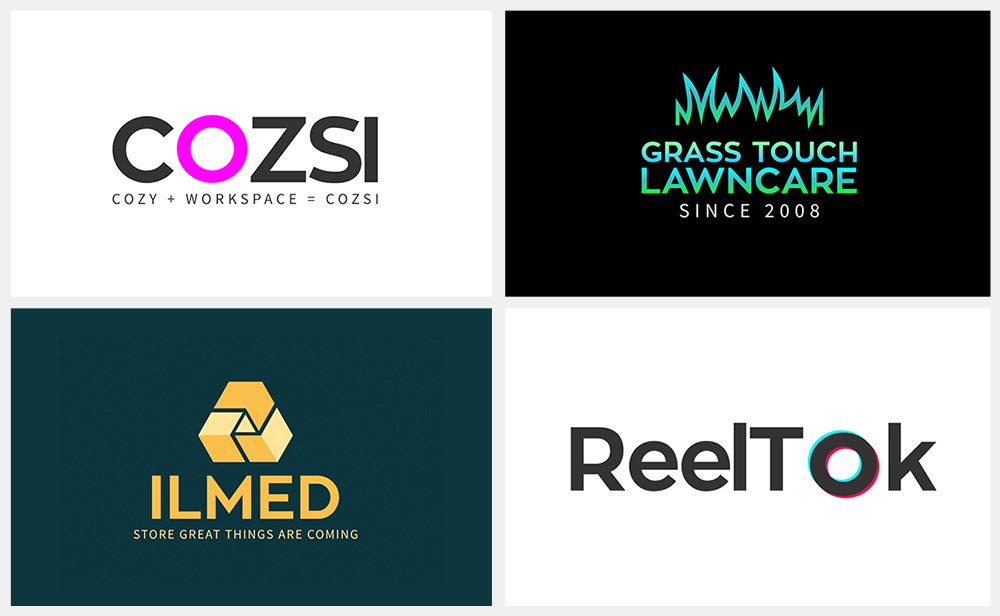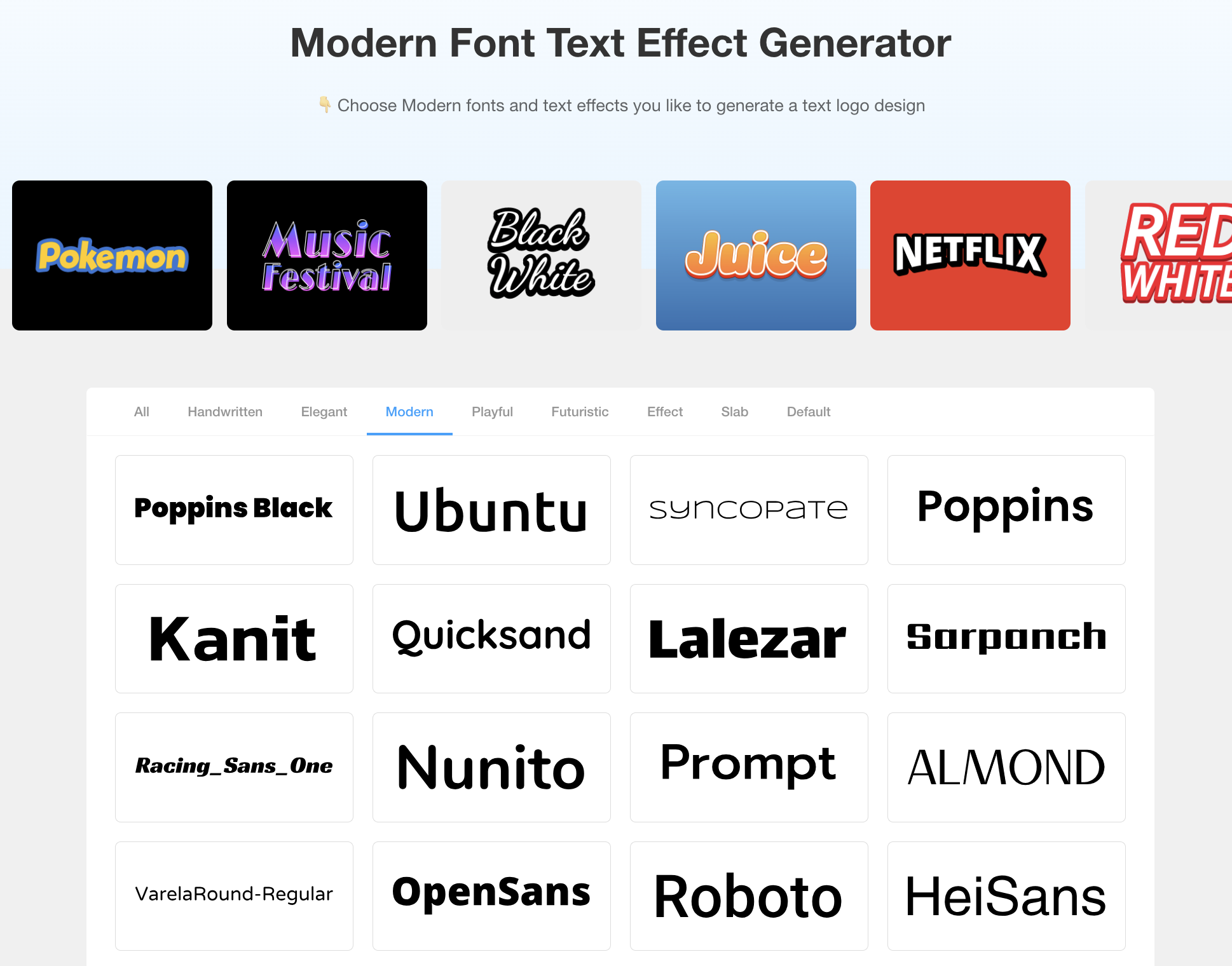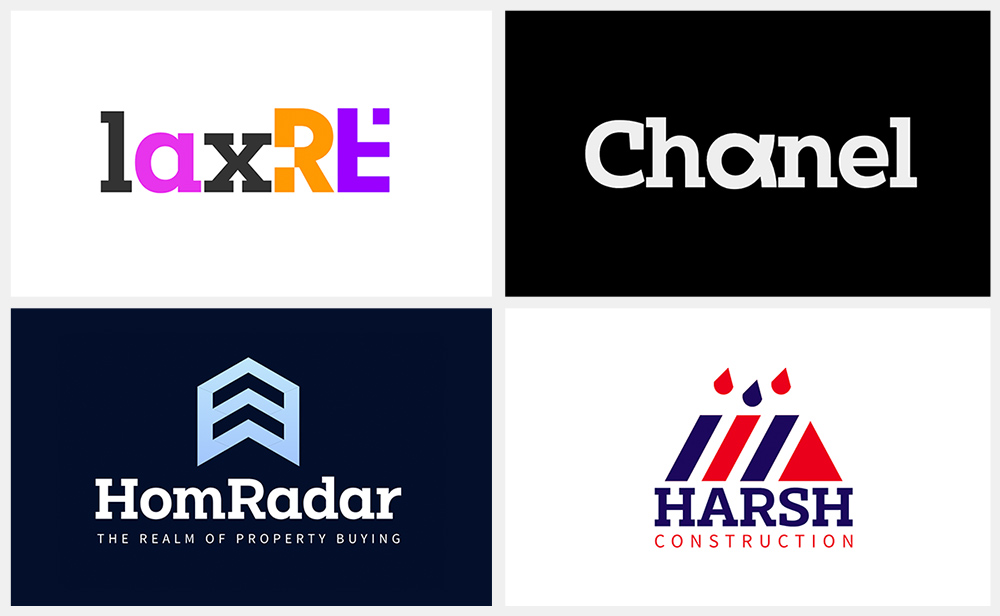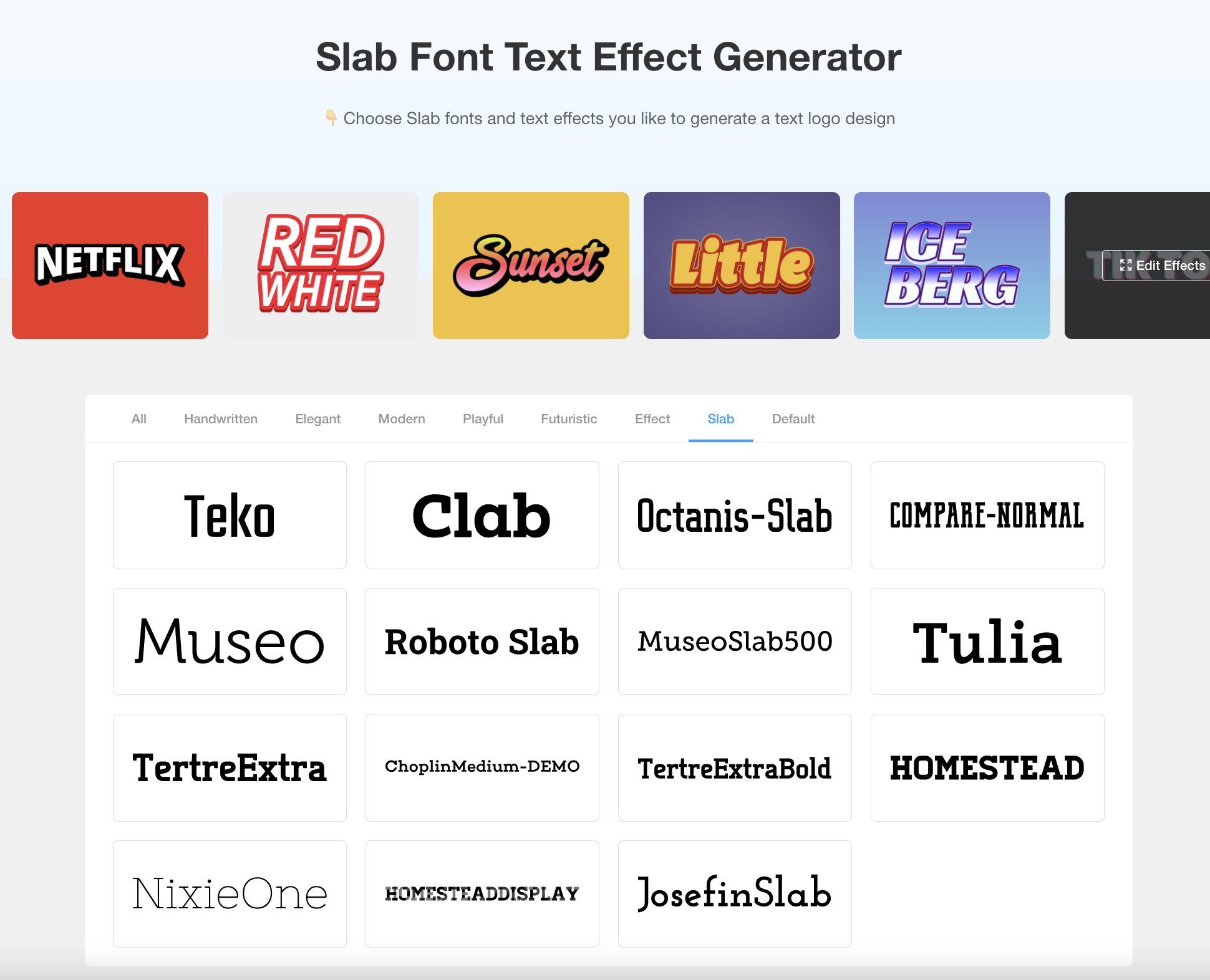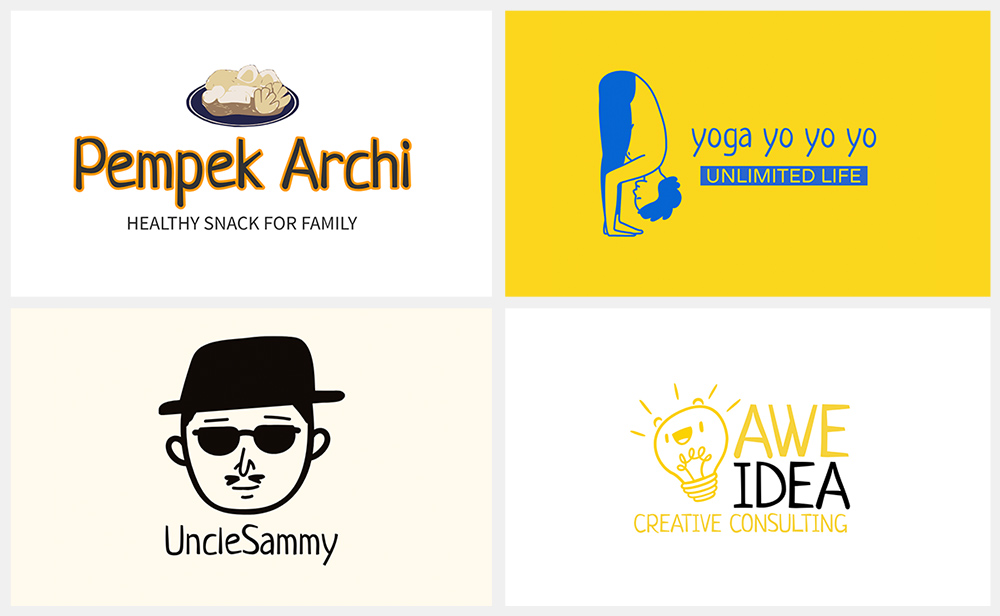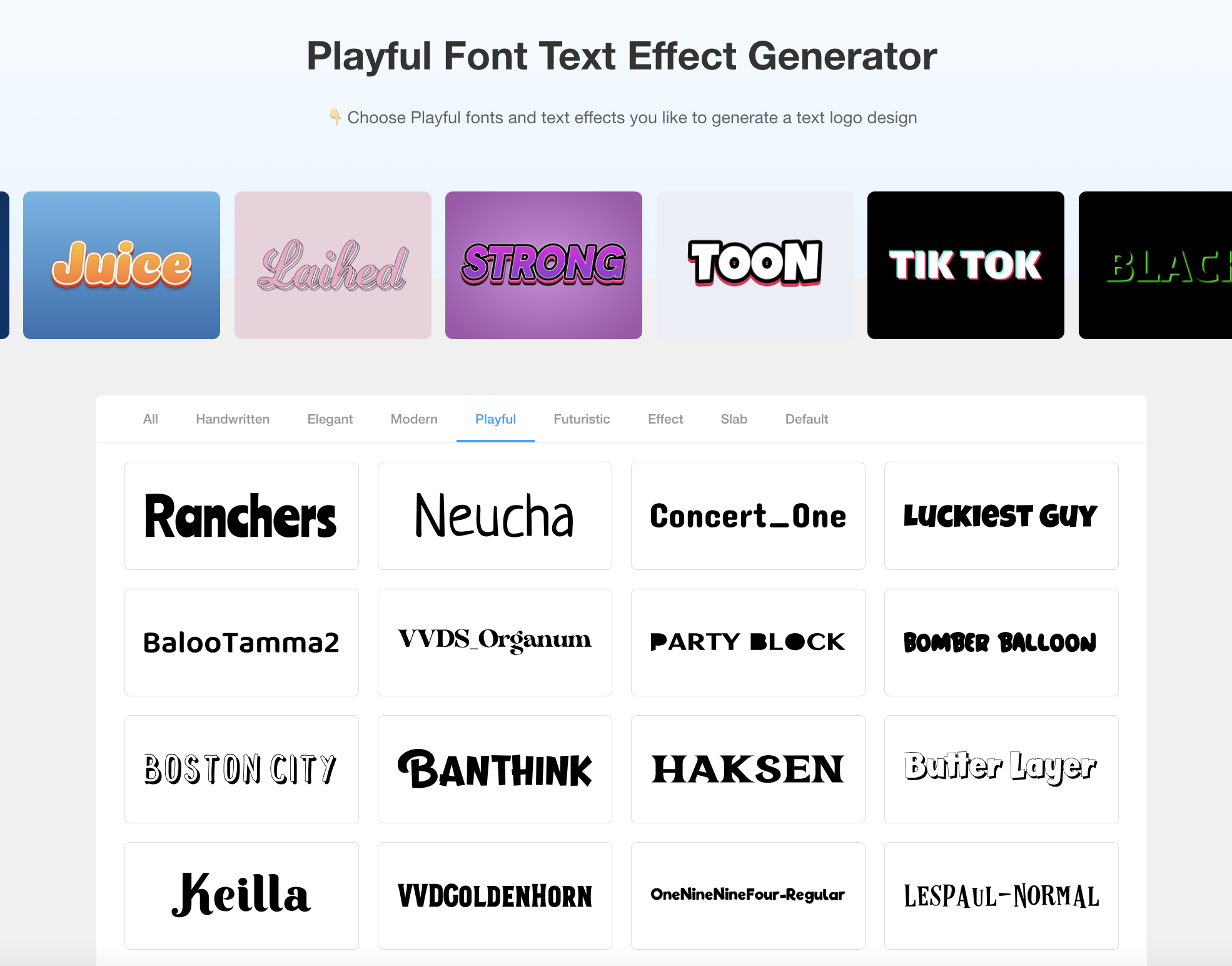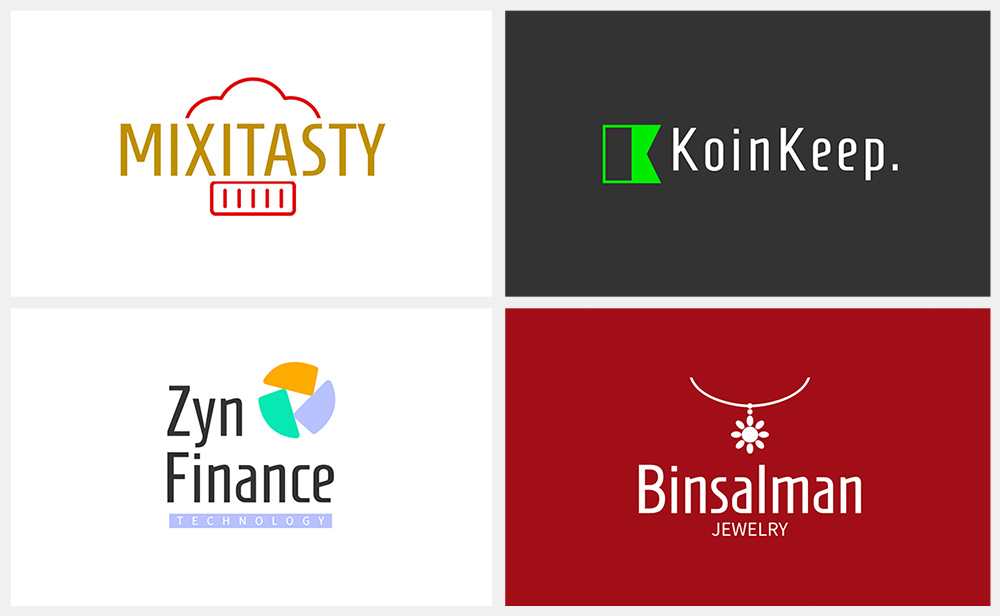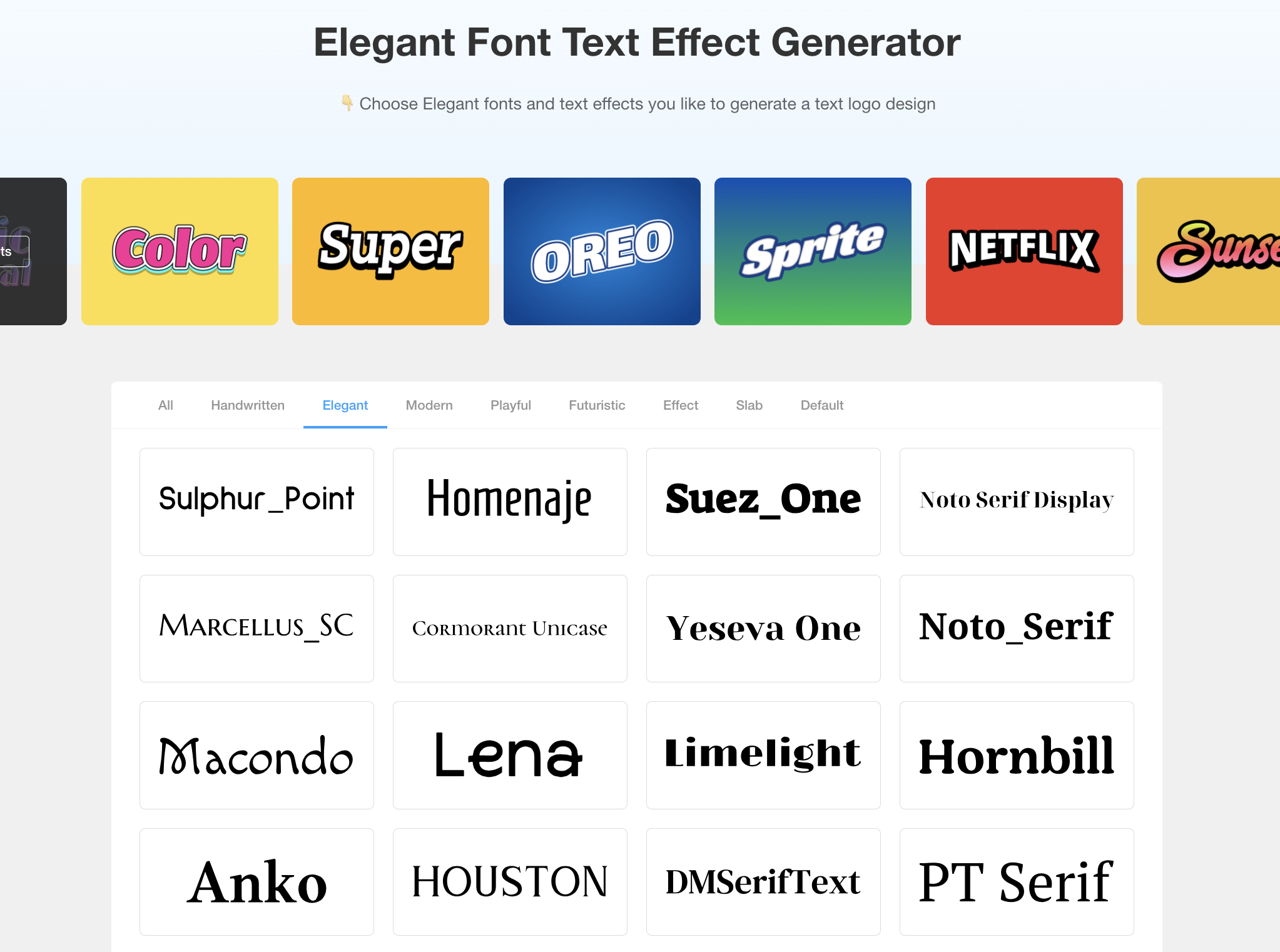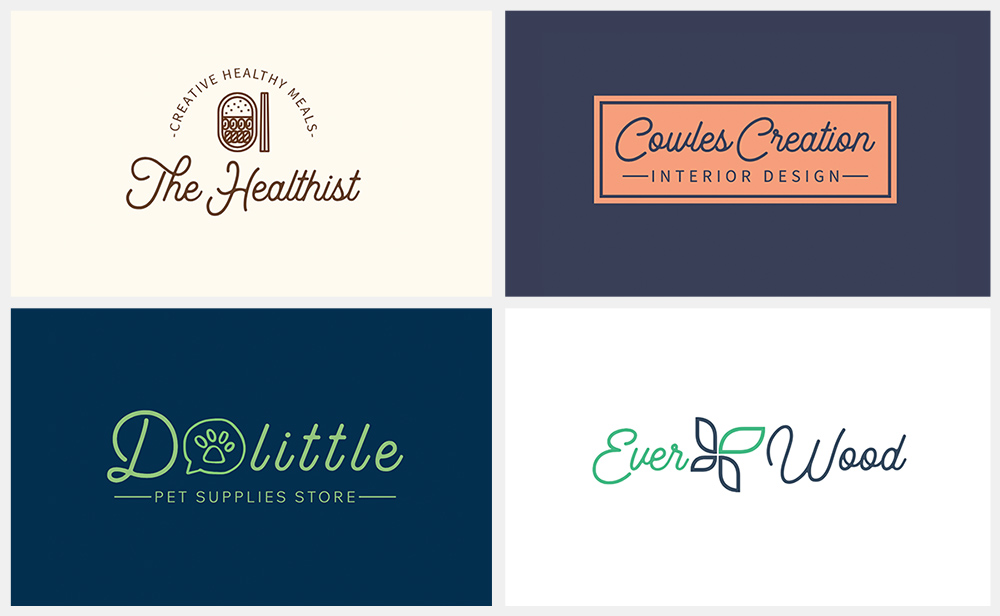
Top 7 Font Styles for Your Next Logo Design
Discover the top 7 font styles for your next logo design, from modern and playful to elegant and futuristic. Learn how each font style can help your brand stand out and leave a lasting impression!
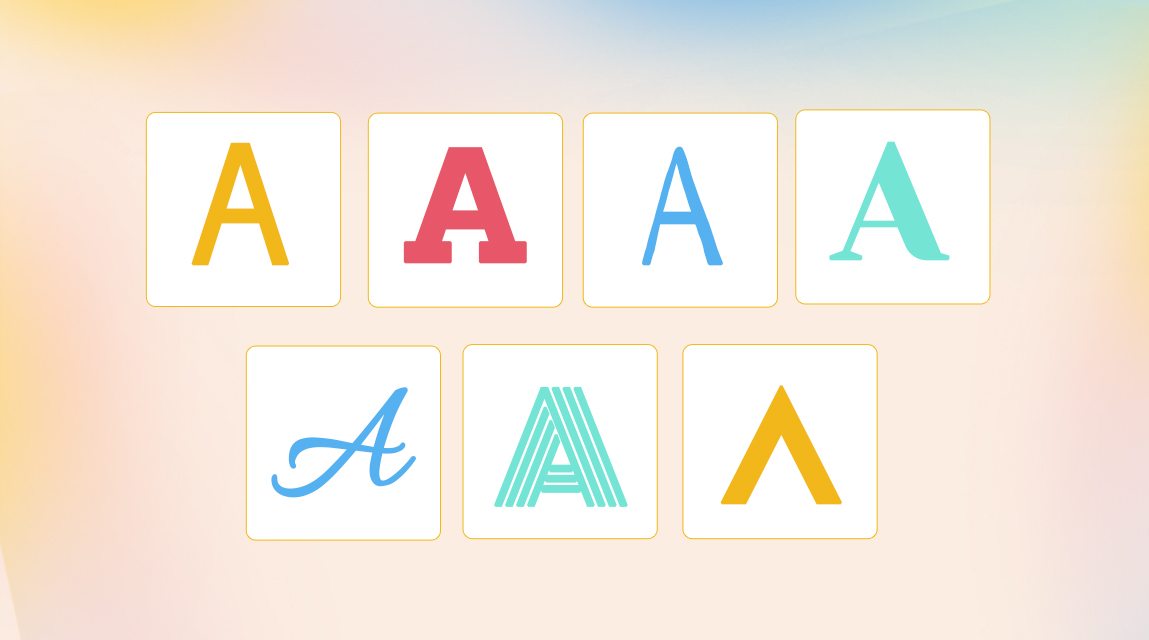
The font you use is one of the elements of your logo that requires utmost attention. It sets the mood of the overall brand and influences people’s attitude towards your company. Whatever it is that you want to convey, be it fresh, fun, classy or fierce, a font can readily express that aspect of your brand. LogoAI is here to assist you in making the right decision and ensuring that it does not only look different but remains memorable, let’s explore 8 relish styles that will make your logo speak for itself.
1. Modern Style Fonts
Modern fonts tend to be clean, simple, and suitable for companies that wish to portray a sense of modernity and change. Usually, these fonts may include a lot of straight lines and basic shapes with an aggressive style – great for IT companies or technology logos that risk being too futuristic.
👉 Font example: ZonaPro font is a modern sans-serif font known for its clean, geometric shapes and sleek design. It features smooth curves, sharp edges, and balanced proportions, giving it a minimalist and professional appearance. This font is versatile, making it ideal for contemporary branding, editorial design, and digital interfaces.
2. Slab Style Fonts
Slab fonts have uniquely designed in the form of thick blocks. They tend to blend old styles with contemporary ones, making them suitable for logos that require a trustworthy appearance. Use them when you would like your brand to project some level of authority and professionalism. Well, look at the slab style fonts below!
👉 Font example: Clab font features bold, block-like serifs and a strong, sturdy design typical of the slab style. This gives it a robust and impactful appearance, making it suitable for designs that require a solid and authoritative look.
3. Playful Style Fonts
When your brand is cheerful, imagination based or comes up with products for kids, it is best to go for playful fonts. Playful fonts often include funky shapes, high-spirited features and are decorated with fun images.
👉 Font example: Neucha font features a casual, handwritten style with rounded letterforms that give it a friendly and whimsical appearance. This makes it well-suited for designs that aim to convey a sense of fun and approachability.
4. Elegant Style Fonts
Elegant fonts are usually joined with slender lines and graceful shapes including a lot of curvatures in. They are ideal for luxury logos, elitist products or anything that aims for elegance and sophistication. Such font types are popular in the apparel Logos, cosmetic logos and hospitality industries.
👉 Font example: Homenaje font is one of the elegant fonts that can be found in various stylish designs. It is made of beautiful swirled letters embellished with intricate and wispy curves that evoke fluidity and girlishness.
5. Handwritten Style Fonts
Handwritten fonts enhance the logo more by adding a personal touch. These are the types of fonts which are similar to the actual hand writing; thereby providing warmth and personalization to your brand.
👉 Font example: Beauty font has a smooth and cursive letter style that has a basic and artistic appearance imitating a person’s handwriting.
6. Effect Fonts
Effect fonts are designed to stand out with unique visual treatments, such as shadows, 3D text effect, or distressed looks. These fonts add a sense of depth or texture to a logo and are ideal for creative brands looking to make a bold statement.
👉 Font example: Monoton font features a distinctive, retro-inspired design with a unique, striped appearance that adds visual interest and a sense of depth. Its bold and eye-catching design makes it ideal for creating standout logos and attention-grabbing text elements.
7. Futuristic Style Fonts
Commonly, Futuristic Fonts have sharp edges, geometrical patterns or original shapes. If your target audience is gaming or digital services, sourcing a futuristic font allows such as you to emerge an industry leader. Integrating these designs with personalization in iGaming can further enhance the user experience, creating a more engaging and tailored environment for players.
👉 Font example: Primal font is indeed considered a futuristic font style. It features sleek, angular letterforms with a modern, tech-inspired design, which makes it suitable for projects aiming to convey innovation, technology, or a forward-thinking aesthetic.
Click the image below to design your logo using Primal👇
Click the image below for more futuristic fonts options 👇
Instant Font Suggestions with AI
It is very important to choose the right font style while creating your logo as it influences the perception of your brand. Our AI logo editor can provide instant font suggestions to make your branding process smoother and more efficient.
- Choose Your Font Style: Start by selecting any font style that fits your brand's tone—whether it's modern, elegant, playful, or futuristic.